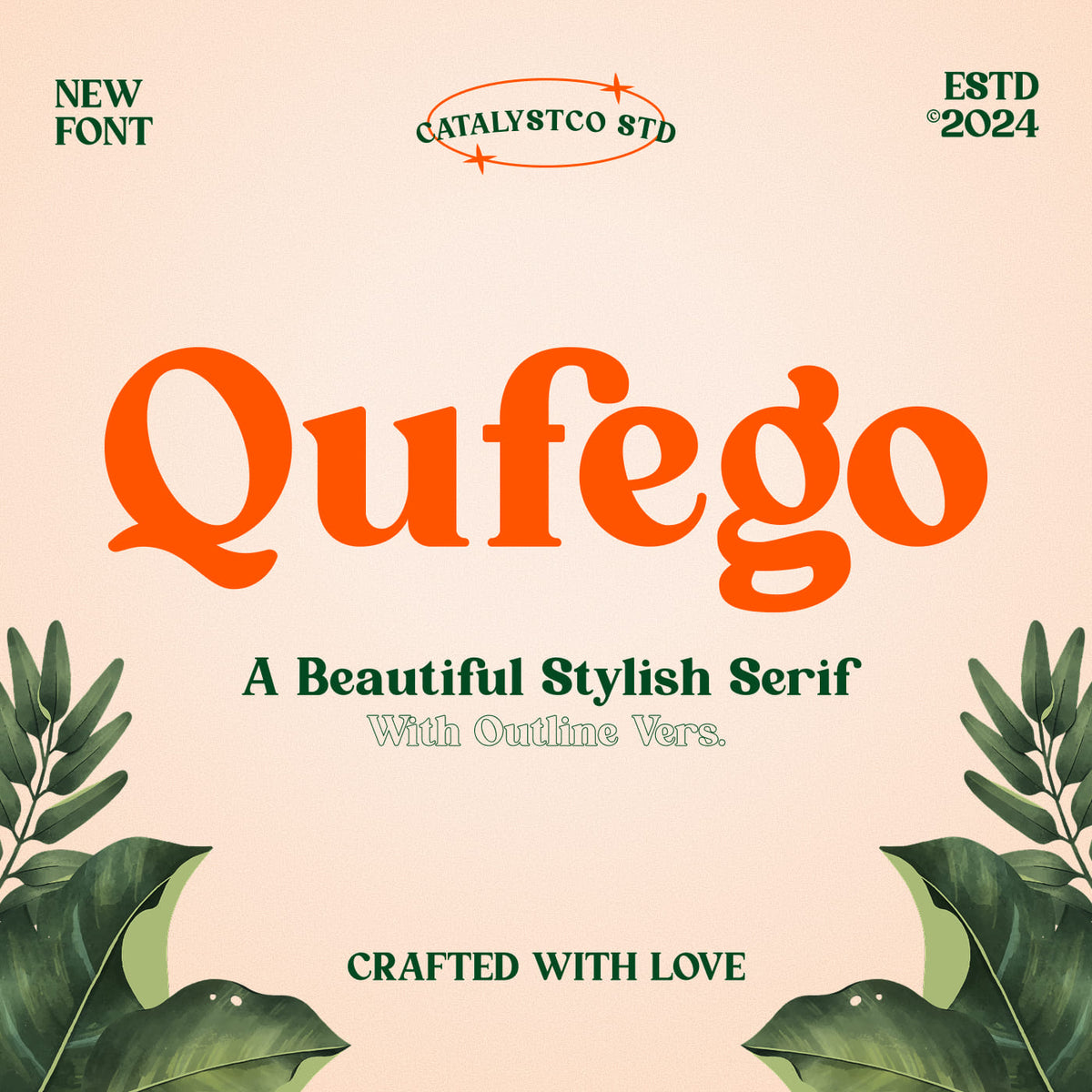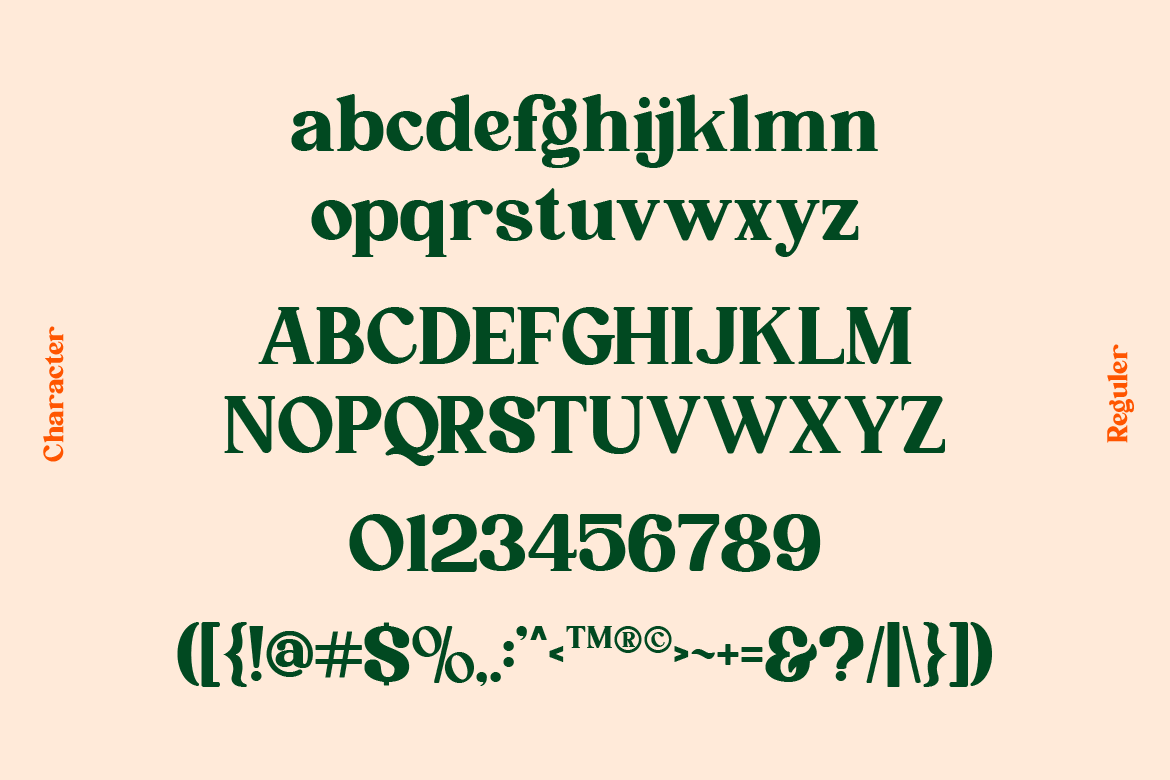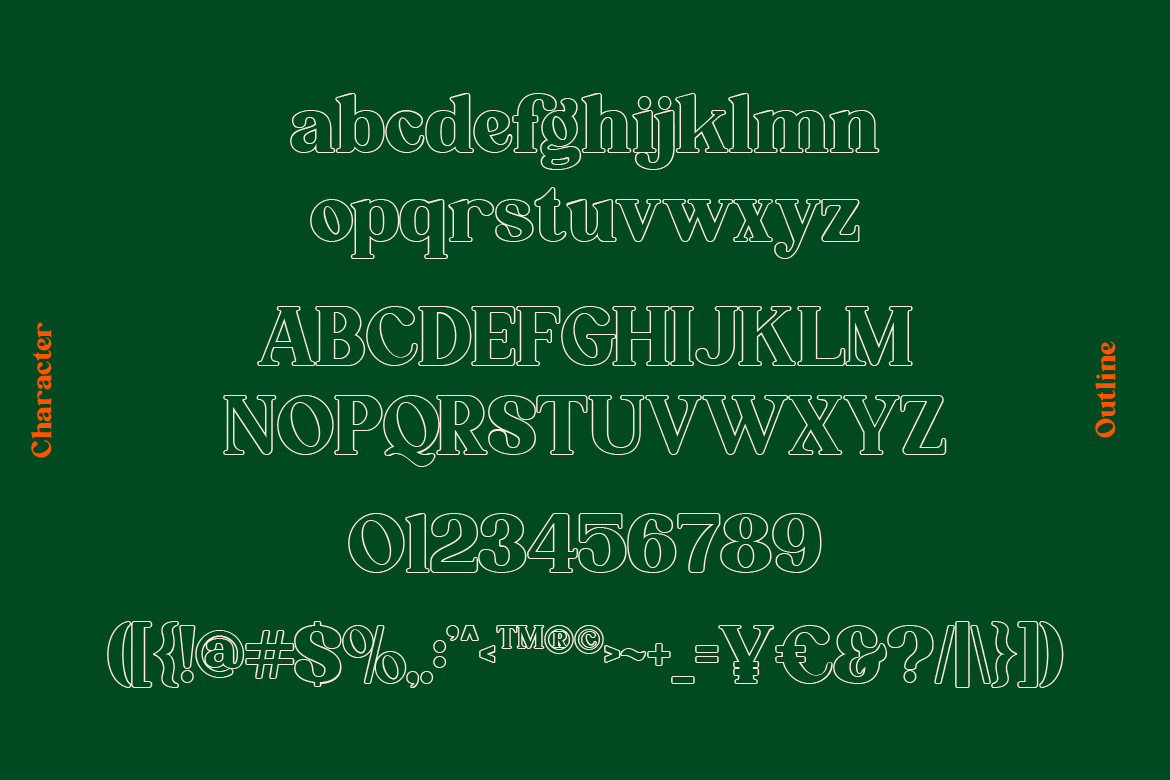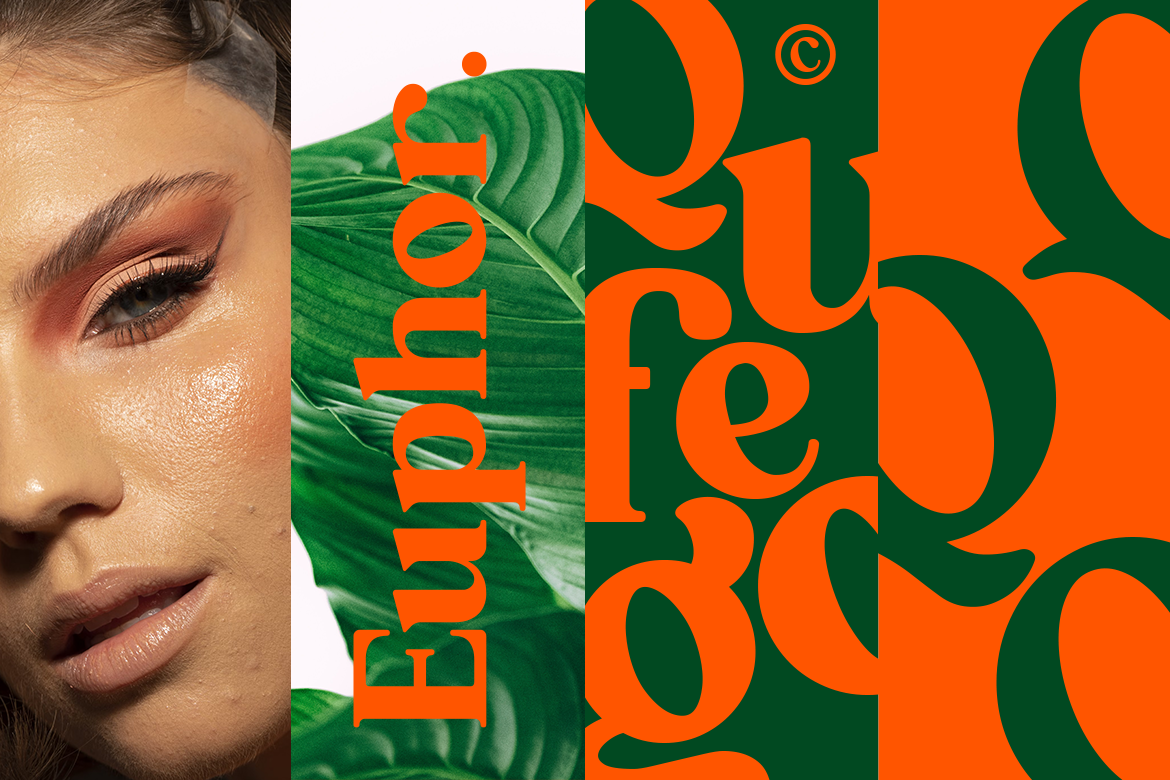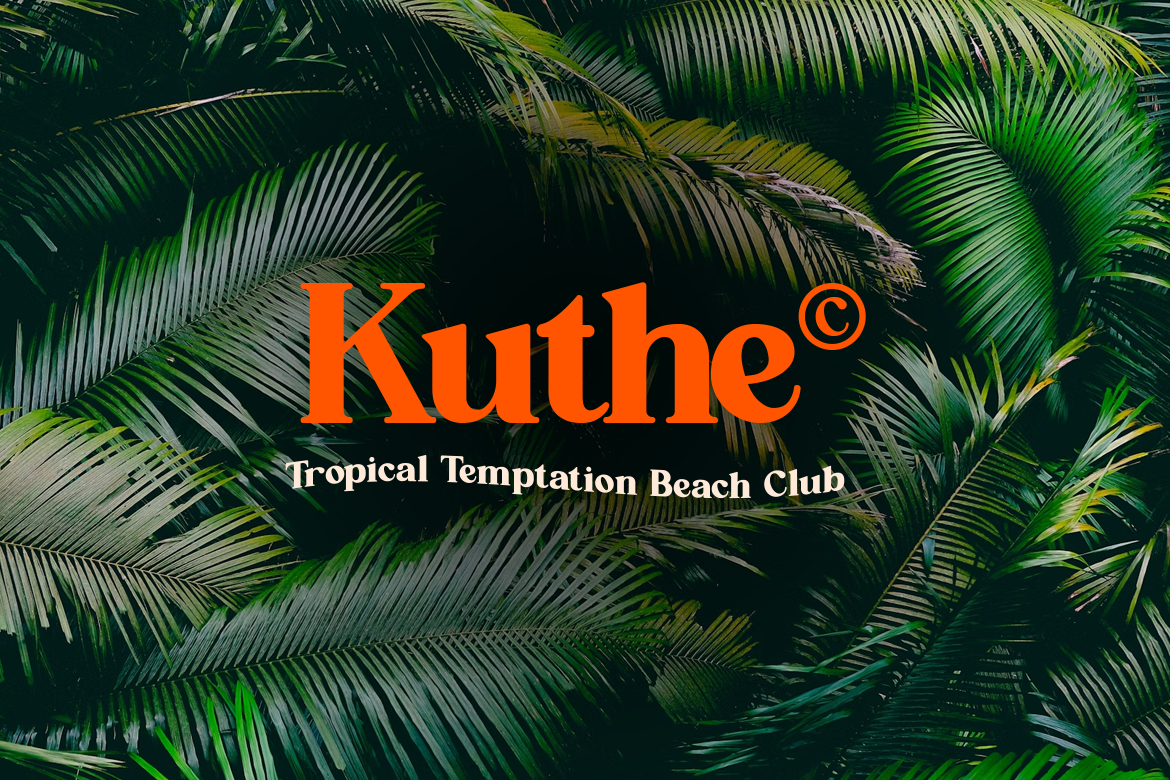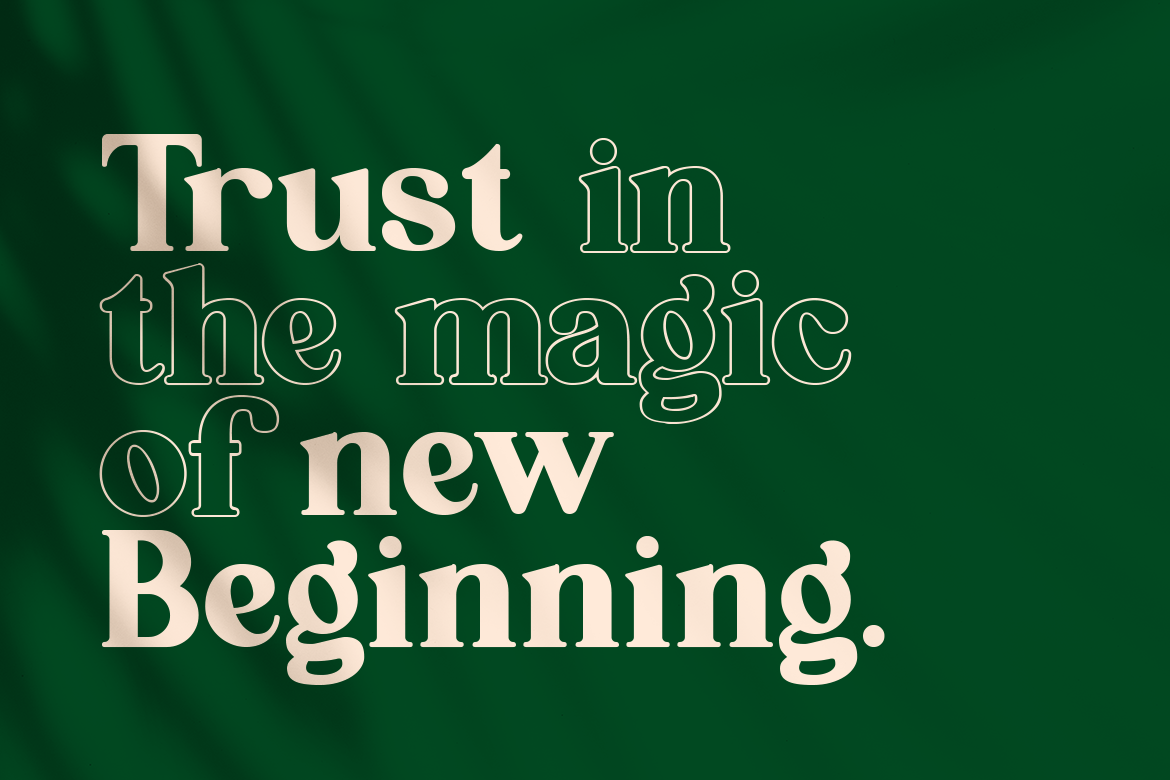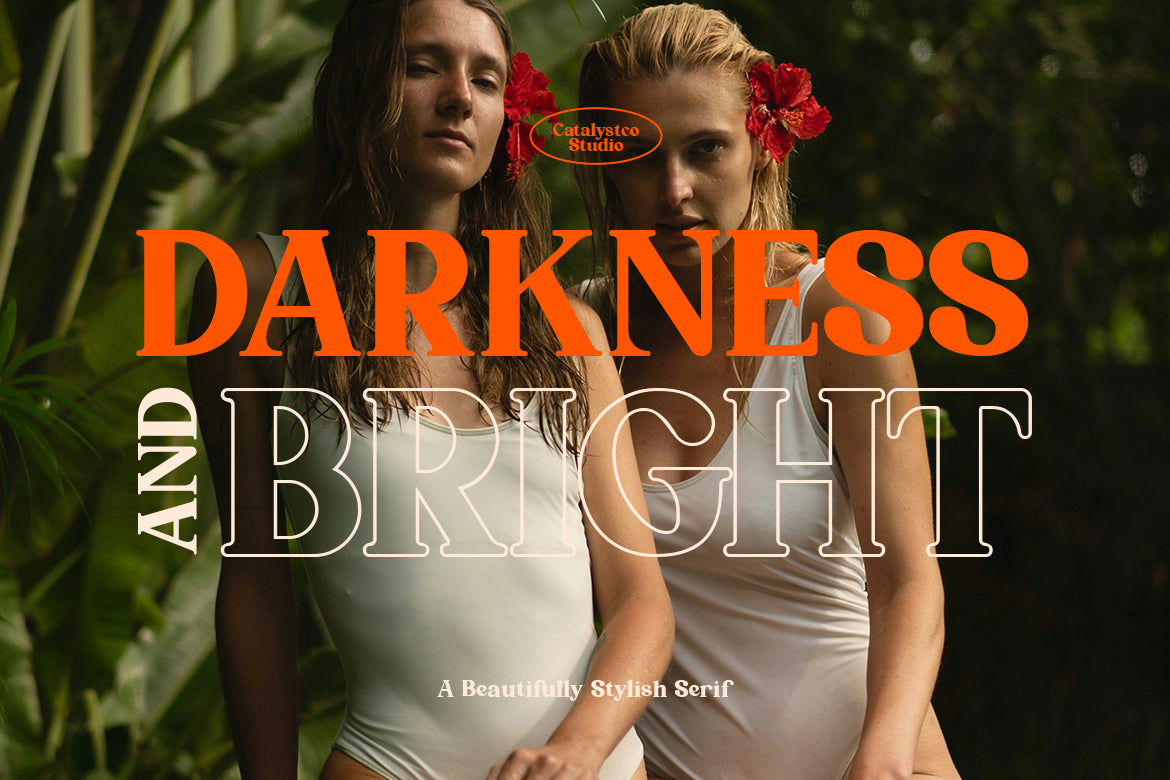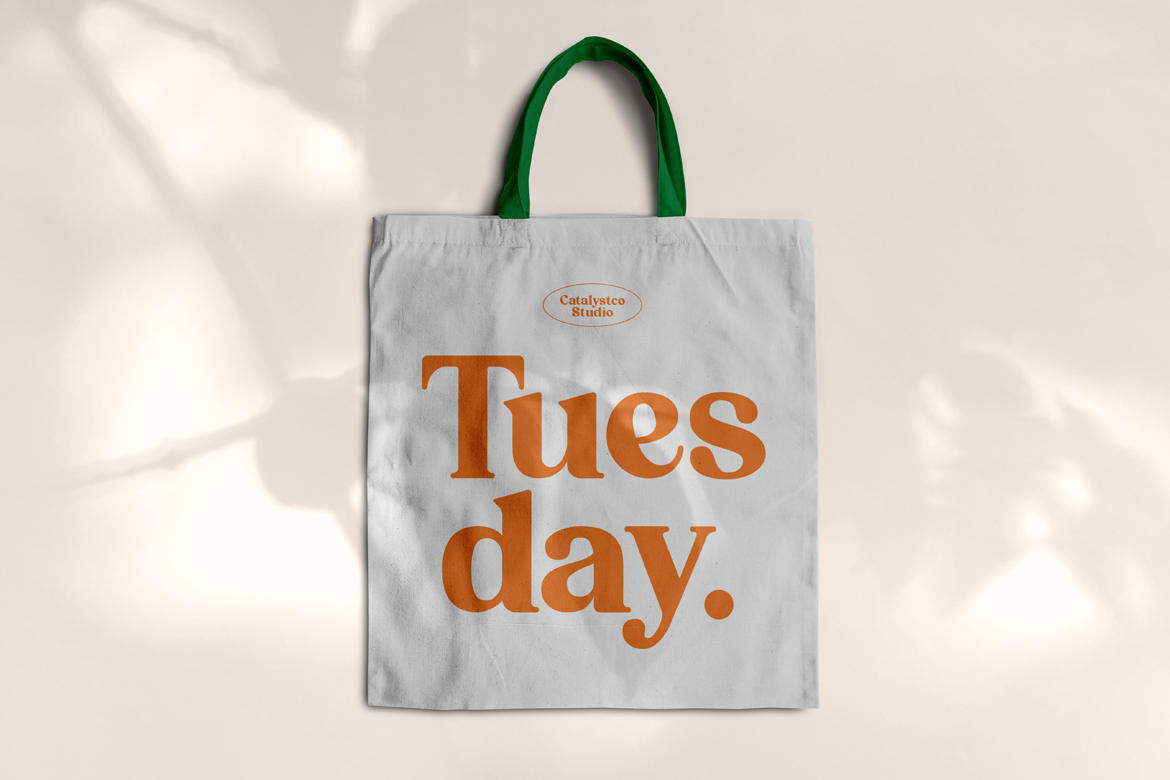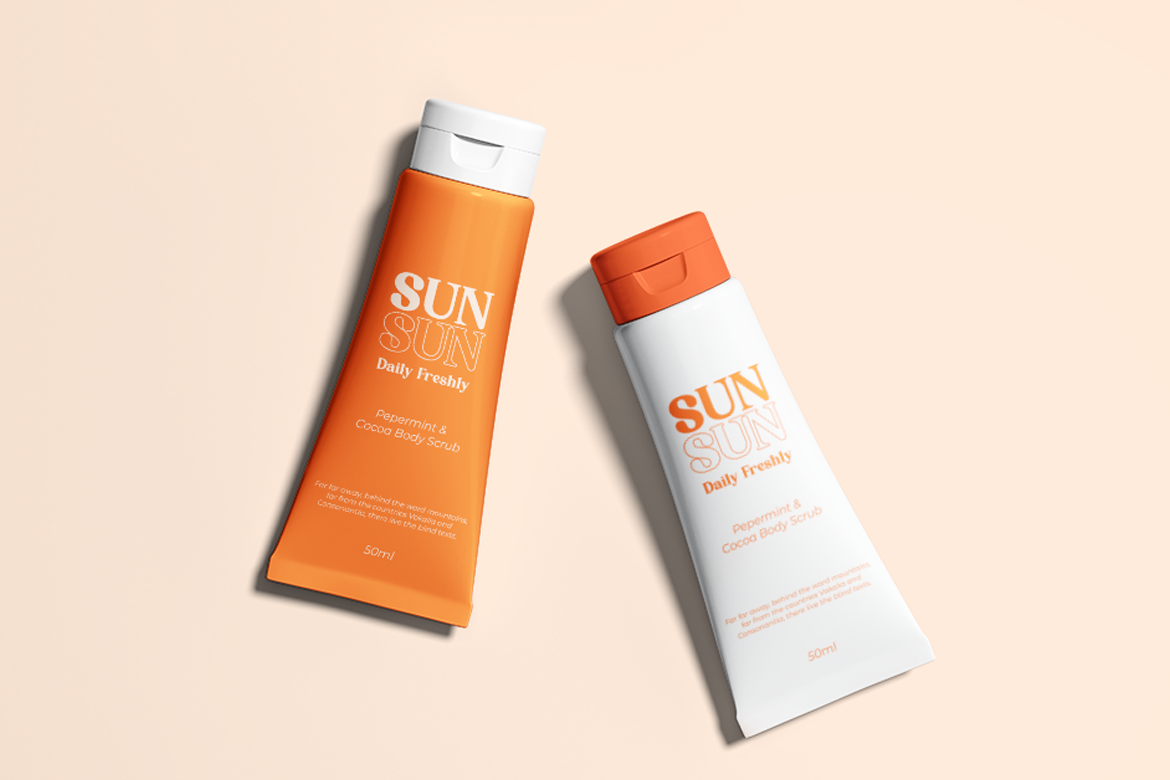
Qufego Beautiful Stylish Serif Font
Qufego Stylish Serif Font is a beautifully stylish serif font that exudes elegance and confidence. Featuring an outline version, Qufego brings bold and luxurious character to any project, whether it's branding, editorial design, logos, or packaging. The refined serif strokes and high contrast shapes make it an excellent choice for those looking for a premium and professional typeface. With multilingual support and a classy aesthetic, Qufego is ideal for creative professionals aiming to elevate their visual identity.
Qufego is a serif font with an outline version, including uppercase and lowercase letters, numerals, and punctuation. It supports multiple languages and is available in TTF, OTF, and WOFF formats.